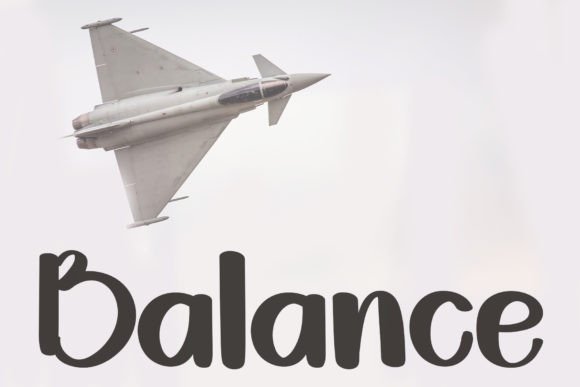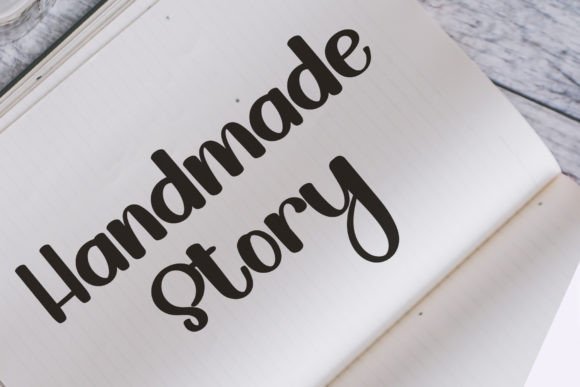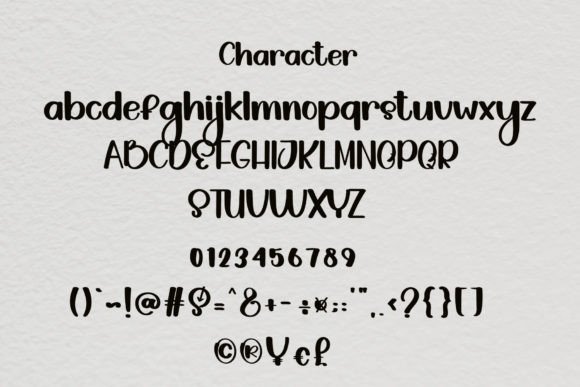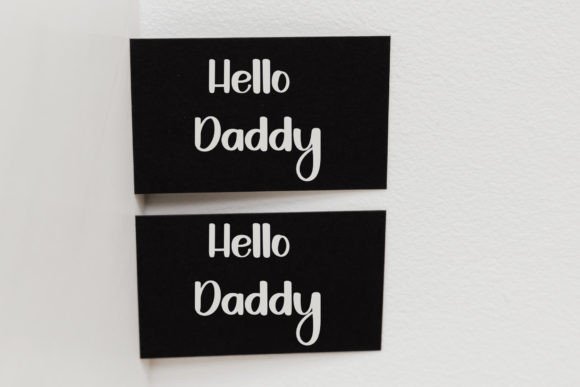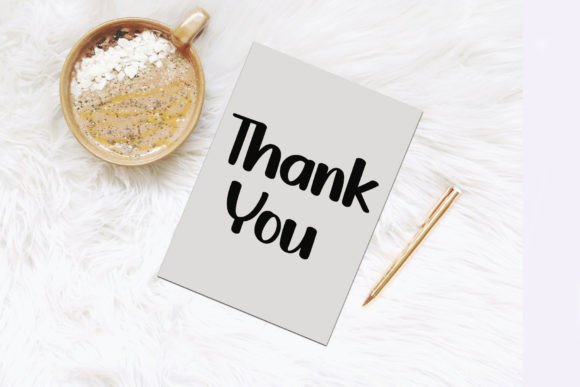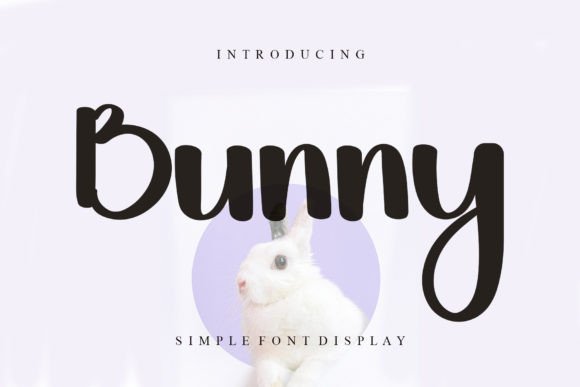
Bunny Font: Elevate Your Designs with a Touch of Elegance
Are you on the hunt for a font that exudes sophistication and modernity? Look no further than Bunny Font, a stunning handwritten typeface that is sure to elevate your designs to new heights. With its refined and classy aesthetic, Bunny is perfect for a wide range of applications, from logos and branding to invitations, stationery, and beyond.
What is Bunny Font?
Bunny Font is a beautiful and elegant handwritten font that is designed to add a touch of sophistication to any design project. Its modern and refined aesthetic makes it an ideal choice for designers and crafters looking to create stunning visual content. Whether you’re working on a logo, invitation, or social media post, Bunny Font is sure to impress.
Key Features of Bunny Font
- Handwritten elegance: Bunny Font boasts a beautiful, handwritten aesthetic that adds a touch of elegance to any design.
- Classy and modern: This font’s refined and sophisticated design makes it perfect for a wide range of applications, from formal events to everyday branding.
- Versatile: Bunny Font can be used for logos, branding, invitations, stationery, wedding designs, social media posts, and much more.
- Easy to read: Despite its elegant aesthetic, Bunny Font is highly legible, making it perfect for use in a variety of contexts.
Use Cases for Bunny Font
So, what can you use Bunny Font for? The possibilities are endless! Here are a few ideas to get you started:
- Logos and branding: Create a lasting impression with a custom logo or brand identity that incorporates Bunny Font.
- Invitations and stationery: Add a touch of elegance to your invitations, greeting cards, and other stationery with Bunny Font.
- Wedding designs: Make your wedding stationery, signage, and decor truly unforgettable with Bunny Font.
- Social media posts: Elevate your social media game with eye-catching graphics and posts that feature Bunny Font.
- Packaging and product design: Use Bunny Font to add a touch of sophistication to your product packaging and design.
Why Choose Bunny Font?
With so many fonts to choose from, why should you opt for Bunny Font? Here are just a few reasons:
- Unique and distinctive: Bunny Font stands out from the crowd with its elegant and refined aesthetic.
- Highly versatile: This font can be used in a wide range of contexts, from formal events to everyday branding.
- Timeless: Unlike trendy fonts that quickly go out of style, Bunny Font’s classic aesthetic ensures it will remain relevant for years to come.
Tips for Using Bunny Font
To get the most out of Bunny Font, here are a few tips to keep in mind:
- Pair with complementary fonts: Combine Bunny Font with other fonts that complement its elegant aesthetic.
- Experiment with colors: Try pairing Bunny Font with different colors and textures to create unique and eye-catching designs.
- Use it sparingly: While Bunny Font is beautiful, it can be overwhelming if overused. Use it sparingly to create maximum impact.
Bunny Font is a stunning handwritten typeface that is sure to elevate your designs to new heights. With its elegant and refined aesthetic, versatility, and ease of use, it’s the perfect choice for designers and crafters looking to add a touch of sophistication to their work. Whether you’re working on a logo, invitation, or social media post, Bunny Font is sure to impress.